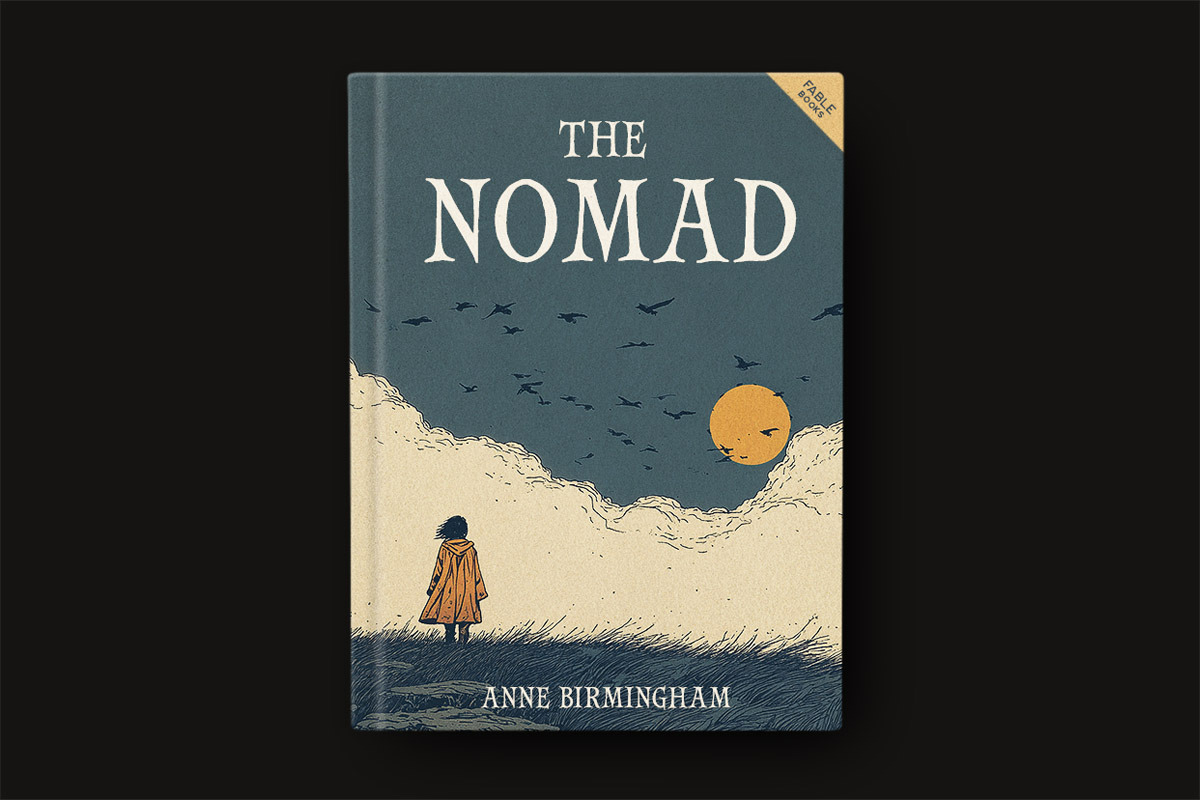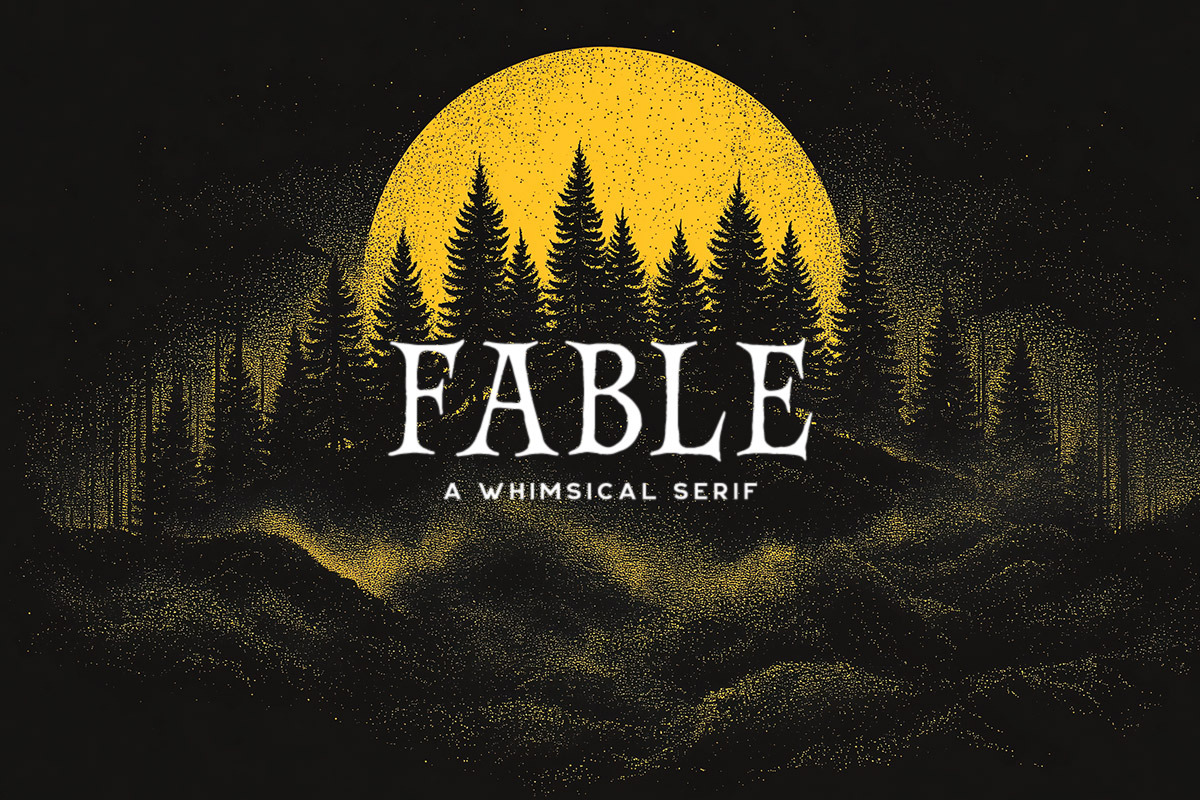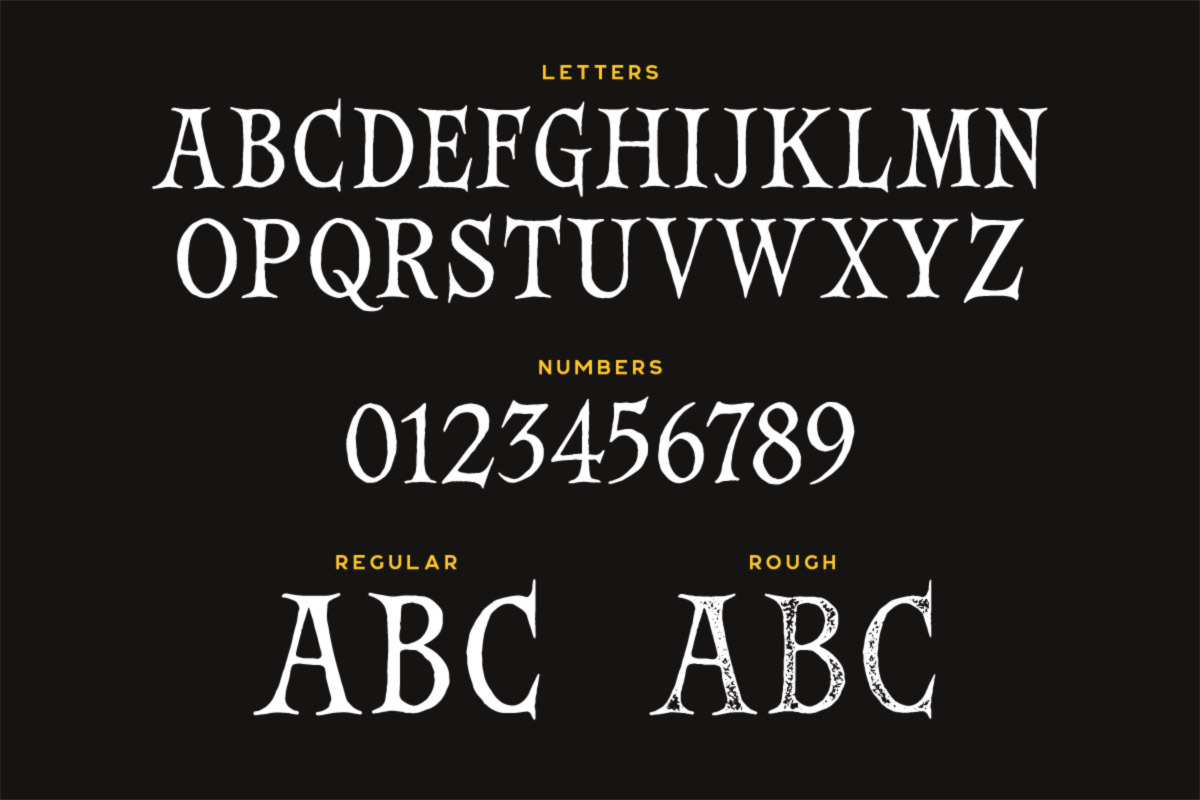
Fable Typeface
FABLE is a whimsical serif crafted with soft curves, storybook charm, and subtle vintage warmth. Inspired by classic illustrated novels and magical woodland tales, FABLE blends elegance with fantasy—perfect for book covers, children’s stories, cozy branding, fantasy titles, packaging, and boutique design work. Includes both Regular and Rough styles for clean or textured storytelling.